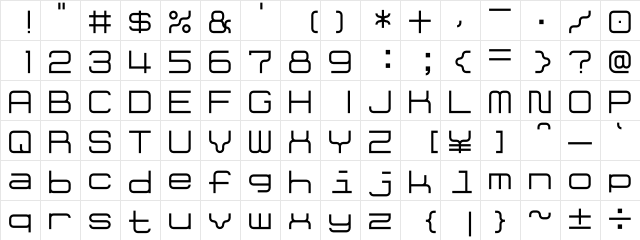
GD-TiVangerionJA-OTF Regular
Design Context for GD-TiVangerionJA-OTF Typeface
GD-TiVangerionJA-OTF takes a measured approach to typography — its balanced proportions and neutral character make it a reliable workhorse for both digital and print work.